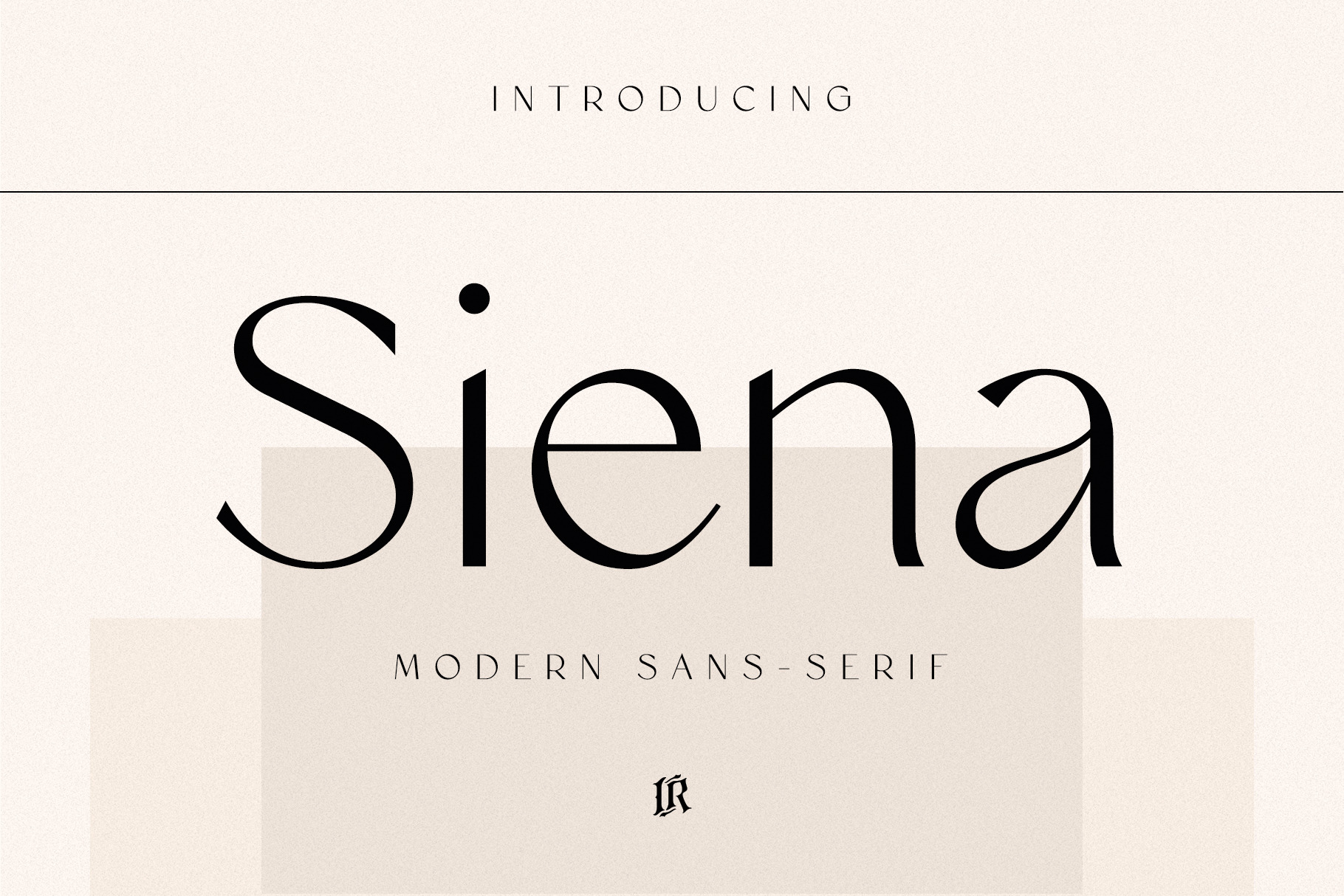
Siena Typeface
Siena is a modern sans-serif typeface inspired by fashion industry. It looks amazing at display sizes and is easily readable in text size.
Siena is a sans serif font made for headlines, titles, and is well-suited for advertising, fashion mood board, branding, logotypes, packaging, titles, editorial design and modern and social media.